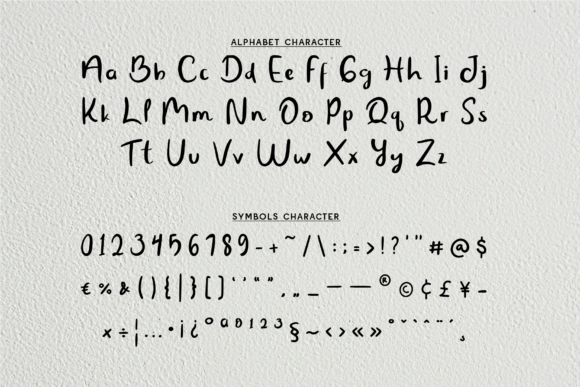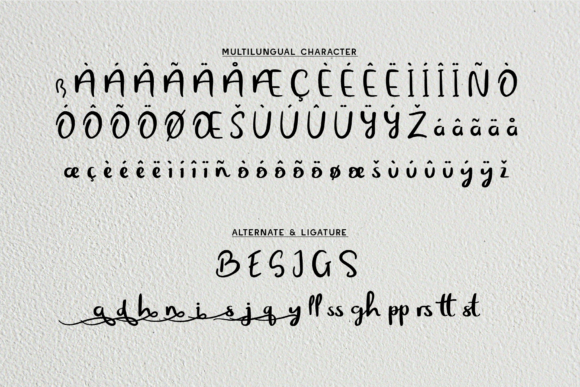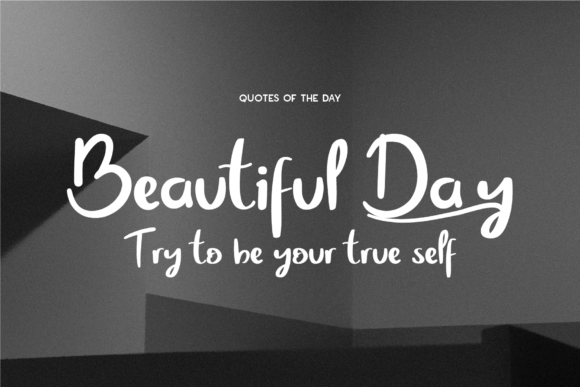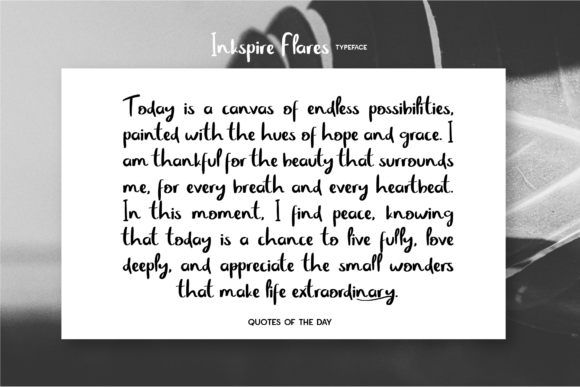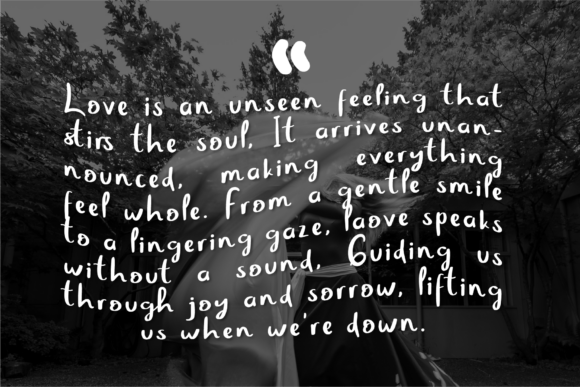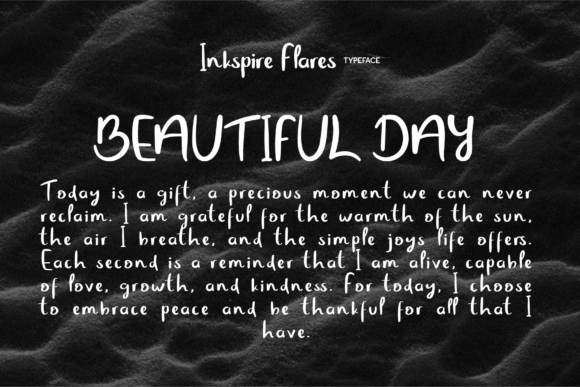
Discovering the Perfect Font for Your Creative Project
Have you ever stared at a blank canvas, wondering which font will bring your design to life? The search for the perfect font can be a daunting task, but what if I told you that you’ve found it? Introducing the elegant and modern Inkspire Flares Font, a handwritten font that exudes effortless charm and sophistication.
As a designer, you understand the importance of selecting a high-quality font that complements your design. With Inkspire Flares Font, you’ll find a versatile and expressive font that flows seamlessly, making it perfect for branding, social media, and creative projects. Its smooth curves and rounded edges bring a soft, approachable feel, while subtle flares add a touch of sophistication.
What sets Inkspire Flares Font apart is its ability to add personality and beauty to any design, making it a valuable resource for designers. Whether you’re working on a project with a transparent background or need a font that stands out on its own, Inkspire Flares Font is sure to impress. And the best part? It’s available for free download, making it an accessible design resource for creatives of all levels.
Key Features of Inkspire Flares Font
- Unique blend of elegant and distressed styles, perfect for creative projects that require a touch of sophistication and whimsy.
- High-quality font with transparent background, ideal for use in graphic design, digital art, and other creative endeavors.
- Includes a wide range of characters, including uppercase and lowercase letters, numbers, and special characters, making it a versatile design resource.
- Perfect for use in digital designs, such as logos, social media graphics, and website headers, as well as in print designs, like posters, flyers, and business cards.
Honest Review: Inkspire Flares Font
As a designer, I’m always on the lookout for high-quality design resources to elevate my creative projects. The Inkspire Flares Font is one such find that has impressed me with its unique style and versatility. ✨
One of the standout features of this font is its transparent background, which makes it easy to use in a variety of design scenarios. Whether you’re working on a digital project or creating a print-based design, Inkspire Flares Font is a great addition to your toolkit.
Here are some of the key benefits of using Inkspire Flares Font:
- High-quality design with a unique flair
- Perfect for creative projects requiring a touch of elegance
While the Inkspire Flares Font is a great addition to any designer’s toolkit, there are some limitations to be aware of: ⚠️
- Some users may find the font too ornate or overwhelming in certain designs
- The font may not be suitable for all types of text-based designs
Overall, I’m impressed with the Inkspire Flares Font and would recommend it to designers looking for a high-quality, unique font to add some flair to their creative projects. With its transparent background and elegant design, it’s a great resource to have in your toolkit.
The Inkspire Flares Font is a high-quality design resource ideal for creative projects. With its unique flair and transparent background, it’s perfect for adding a touch of elegance to your designs.
The Inkspire Flares Font is perfect for:
- Business cards and branding materials
- Artistic and creative projects